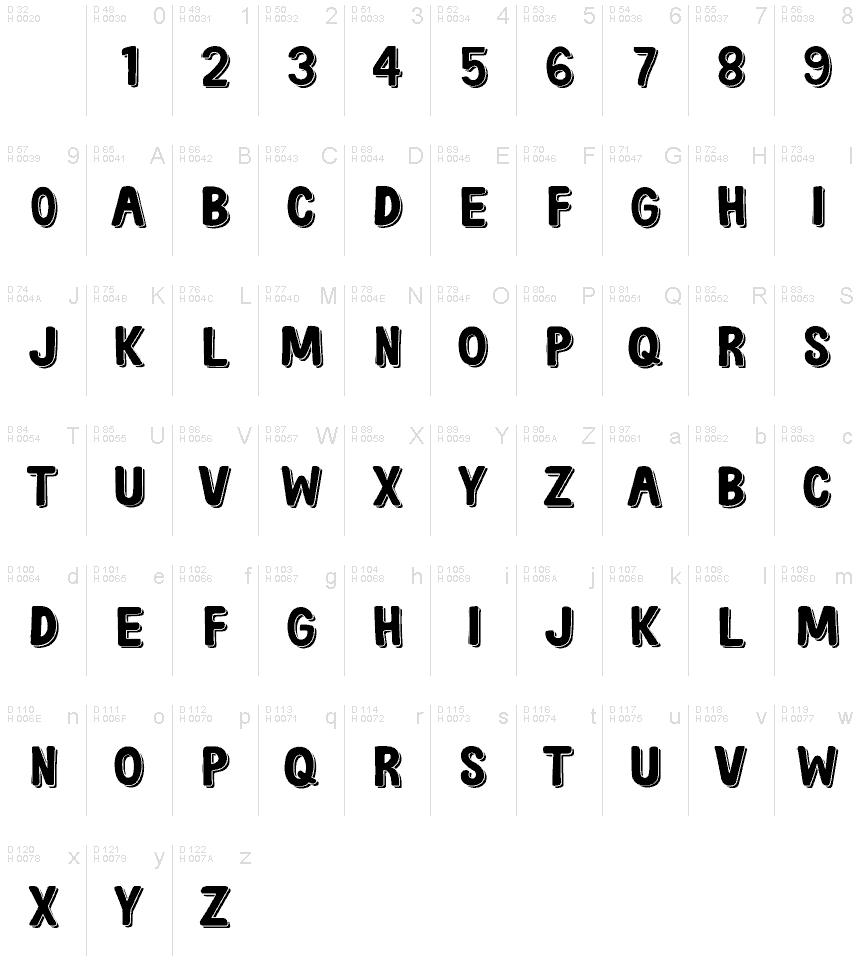
FLAWFULL
Flawfull font by Folv is a condensed display font with a strong cartoon style. This typeface surely stands out due to its retro-inspired and blocky appearance that presents an informal tone and approachable feel. Additionally, the modern twist it showcases gives Flawfull versatility within some areas where it can be used.